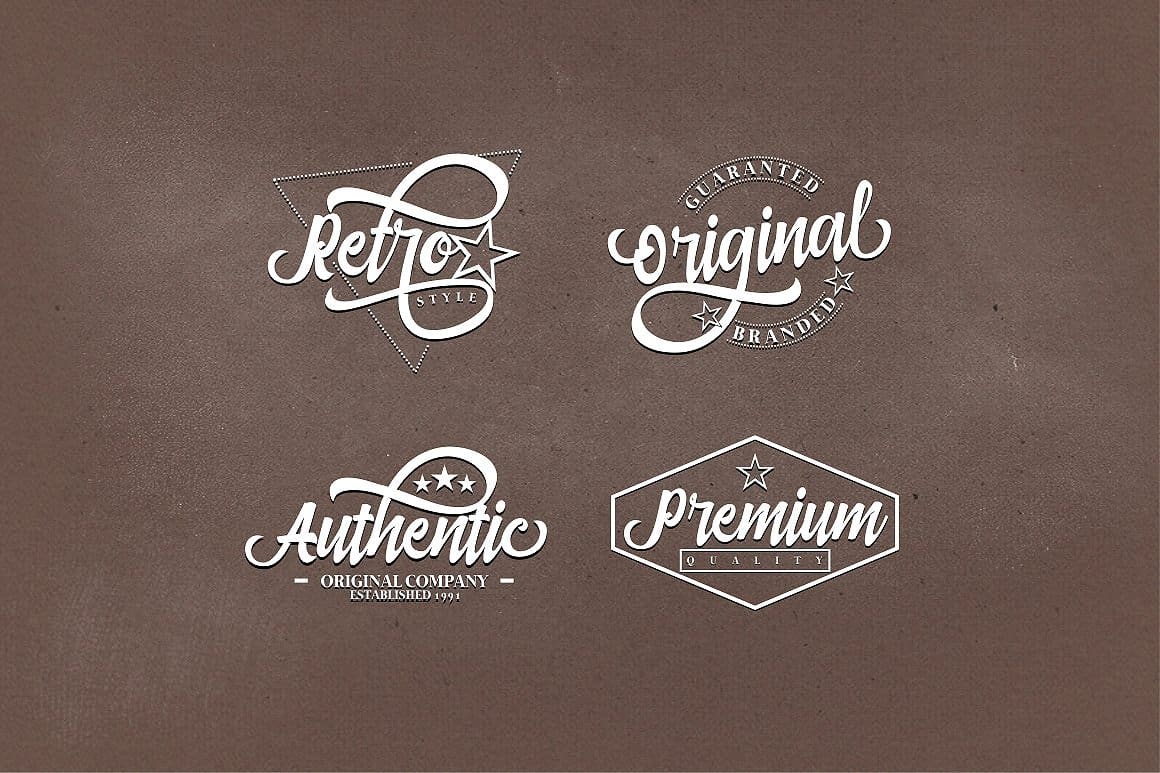
Strike Alone Font
Strike Alone Font is the most used typeface inside the meme. This typeface is much like the arciform typeface and surprisingly applied in innovative marketing. That is one of the high-quality fonts of all instances.
In most times, mounted alternatives possible your top-notch guess just like the script will round out your shape successfully and will let you deliver the proper color and statistics.